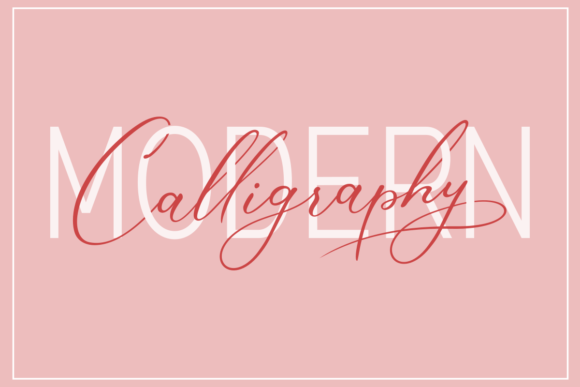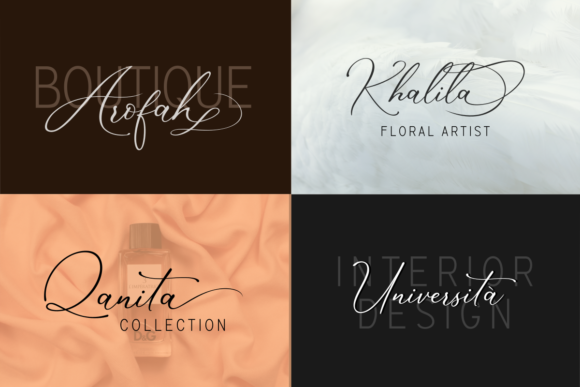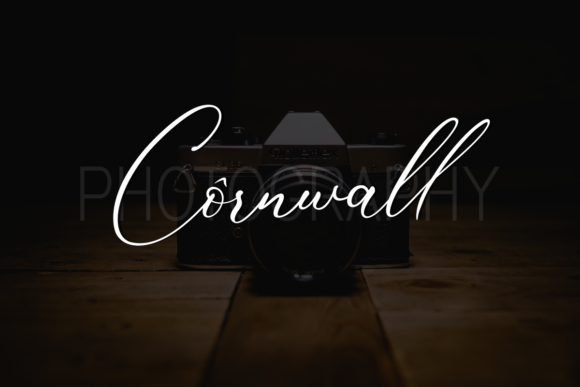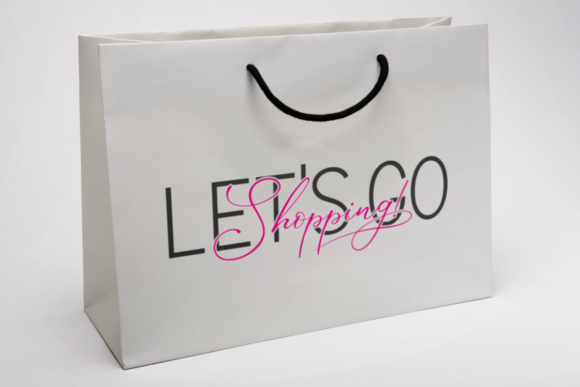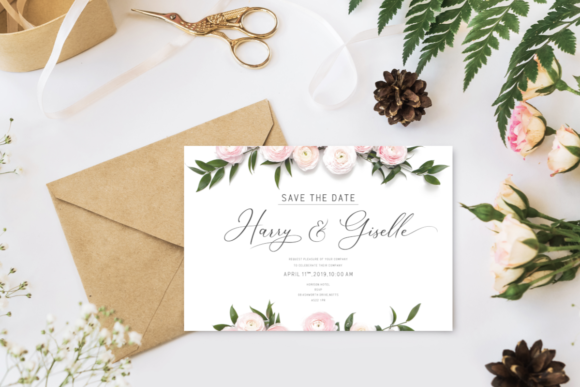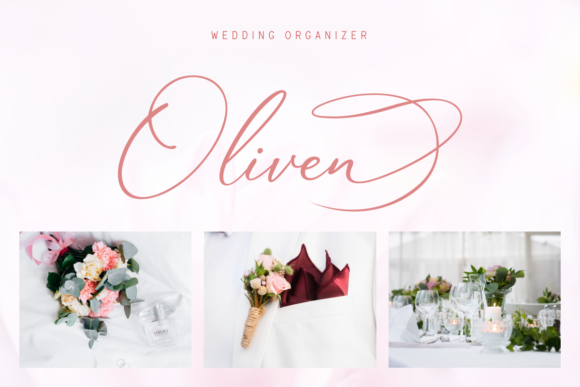
Introduction to Marvelous Duo Font
As designers, we’ve all been there – staring at a blank canvas, struggling to find the perfect font to bring our creative project to life. The perfect font can make all the difference, elevating our designs from bland to grand. And that’s exactly what the Marvelous Duo Font does – it’s a stunning pair of beautiful script and sans fonts that are designed to complement each other with elegant beauty and a contemporary style.
Whether you’re working on branding, invitations, business cards, weddings, logo designs, or product packaging, the Marvelous Duo Font is a valuable resource that can help you achieve high-quality results. Its free download option makes it accessible to designers of all levels, and its transparent background allows for seamless integration with your design elements. With the Marvelous Duo Font, you’ll be able to add a touch of sophistication and creativity to your projects.
Key Features of Marvelous Duo Font
- High-quality font with a unique, creative design that makes it perfect for various projects, from branding to digital art.
- Features a transparent background, making it ideal for use on various backgrounds and designs.
- Includes two font styles: a bold and a regular version, allowing for versatility in your design projects.
- Supports a wide range of languages, making it a valuable resource for international design projects.
- Available in a high-resolution format, suitable for use in print and digital applications.
- Designed to be a unique design resource, perfect for adding a touch of personality to your creative project.
Honest Review: Marvelous Duo Font
As a designer, I’m always on the lookout for high-quality design resources that can elevate my creative projects. The Marvelous Duo Font is one such find that has caught my attention.
- Unique Design: The font’s duet-like design makes it perfect for pairing with other fonts, creating visually appealing combinations.
- High Quality: The font’s crisp, clean lines and precise shapes make it a great addition to any design project.
- Transparent Background: The font’s transparent background makes it easy to layer and composite with other design elements.
The only drawback I’ve noticed is that the font might not be suitable for projects requiring extremely large or small font sizes, as it can become pixelated at those scales.
Overall, I’m impressed with the Marvelous Duo Font’s design and versatility. It’s a valuable addition to any designer’s toolkit and can be used in a variety of creative projects, from logos to web design. If you’re looking for a high-quality, unique font, the Marvelous Duo Font is definitely worth checking out.
For optimal results, use the Marvelous Duo Font in conjunction with other high-quality design elements. Experiment with different font sizes, colors, and styles to create a visually appealing design. Additionally, use the font’s transparent background to create a seamless design that integrates with other elements.
The Marvelous Duo Font is a versatile design resource that can be used in a variety of creative projects, including logos, business cards, and social media graphics. Its high quality and transparent background make it an ideal choice for designers who want to create professional-looking designs without the hassle of complicated design software.